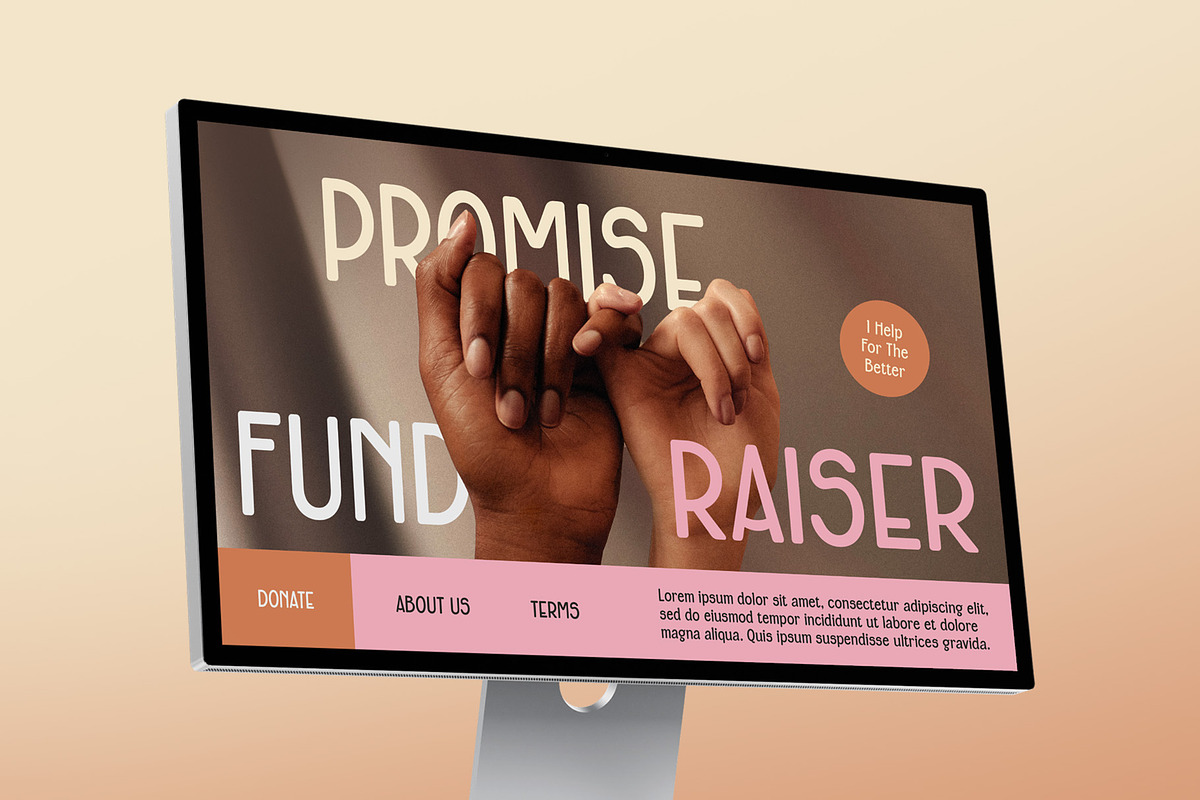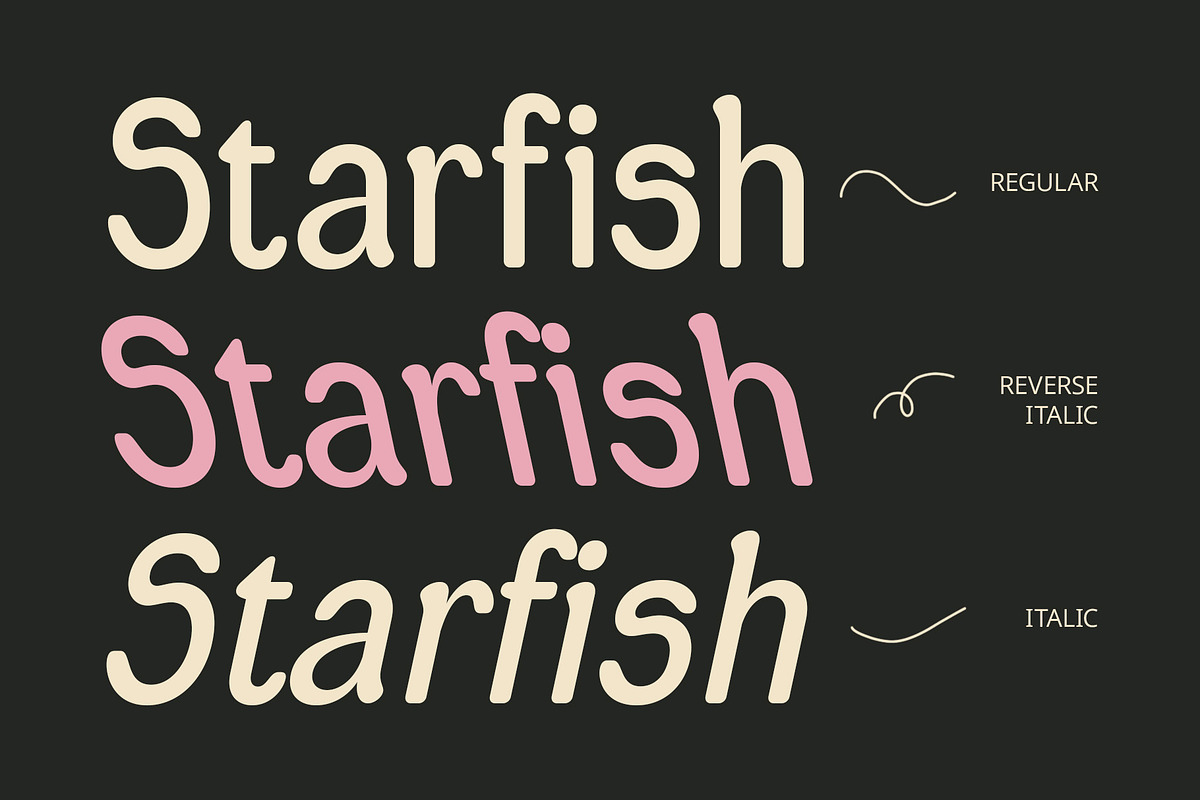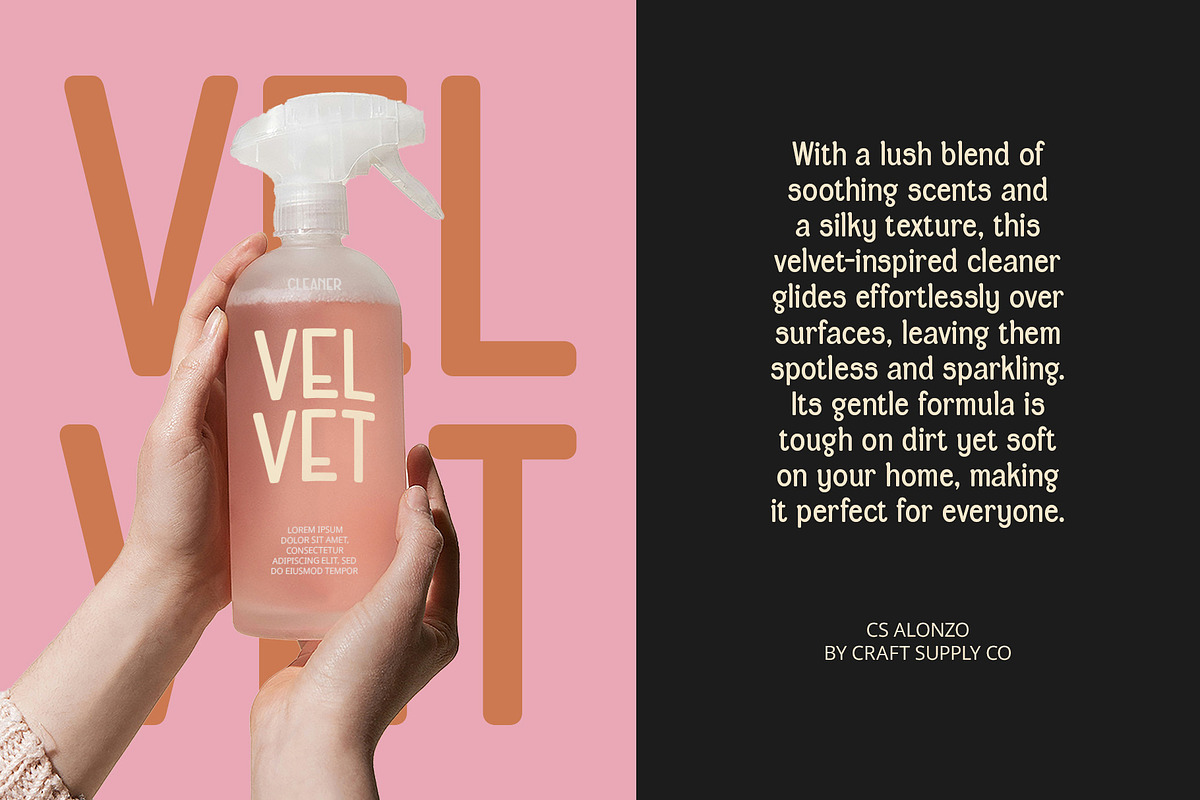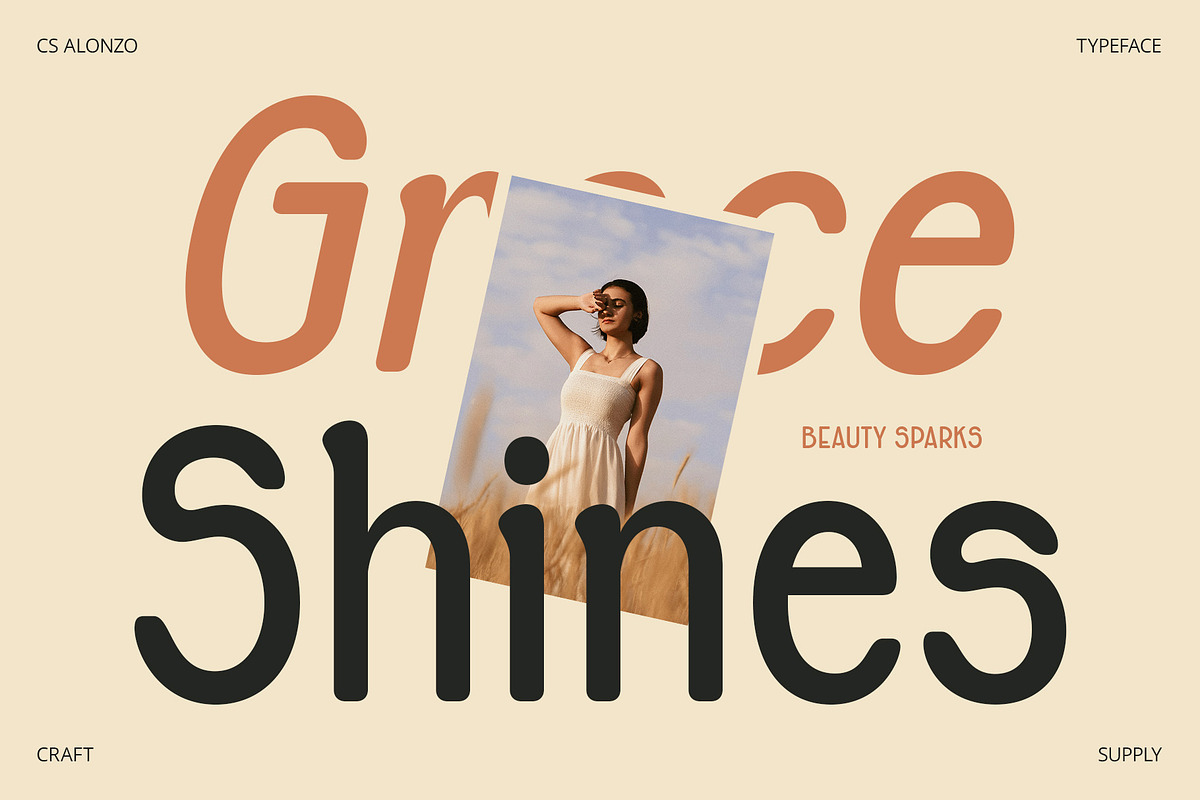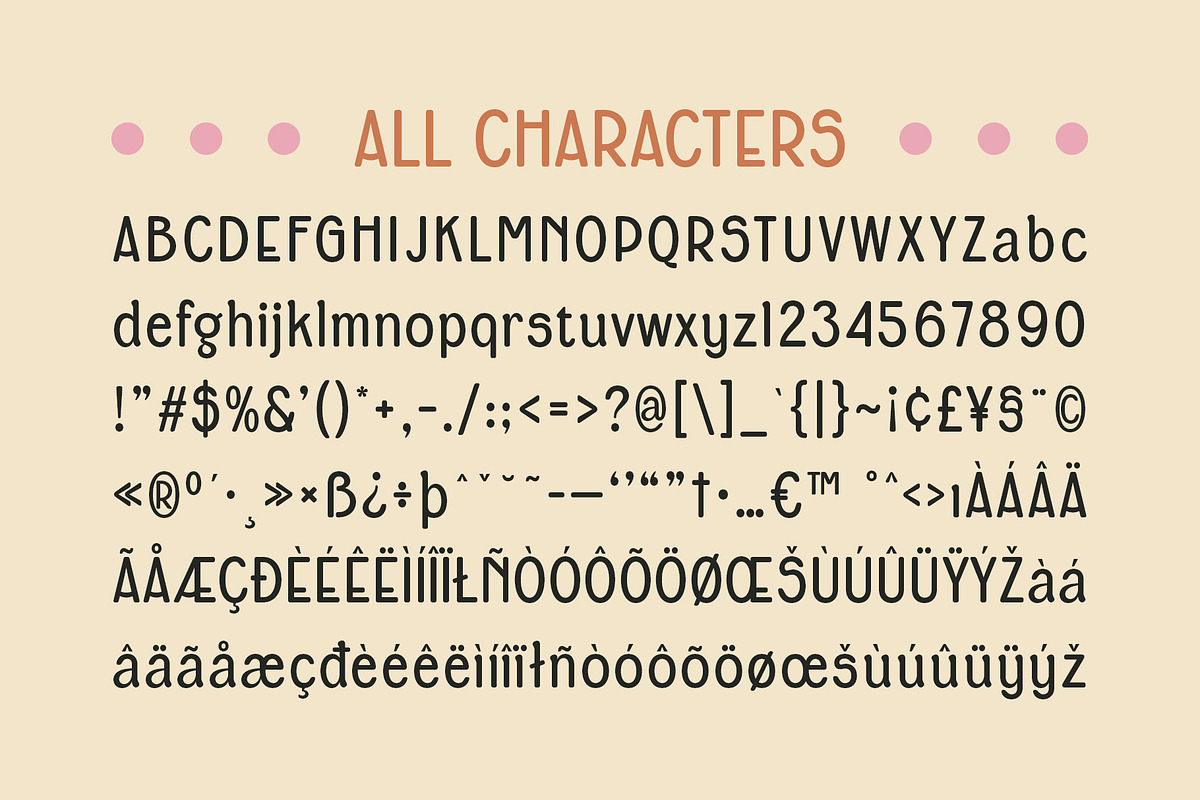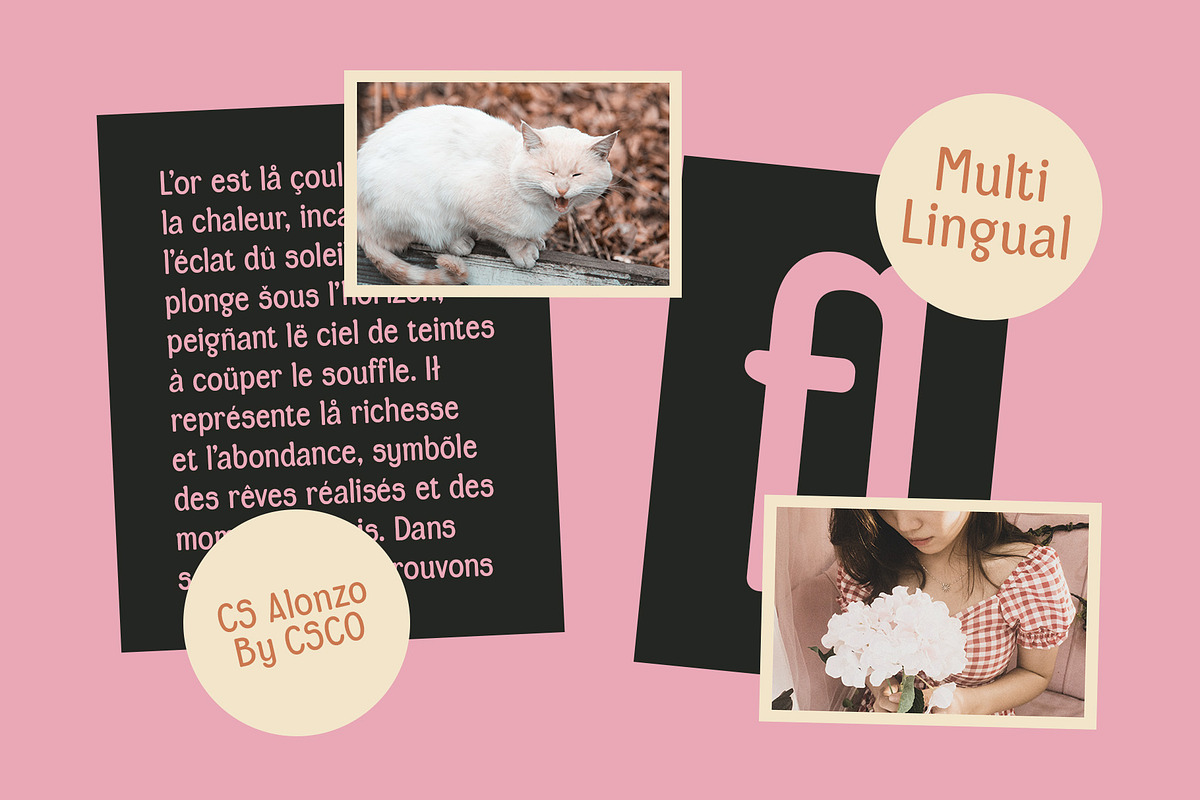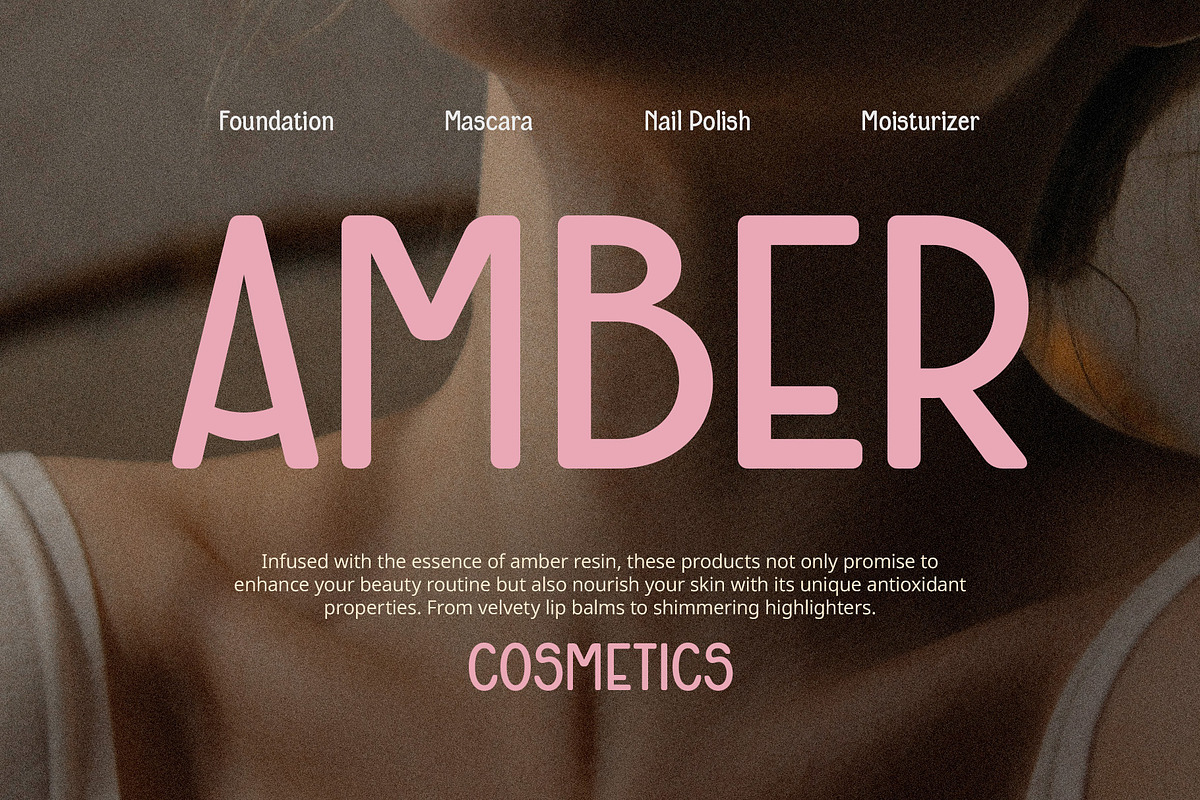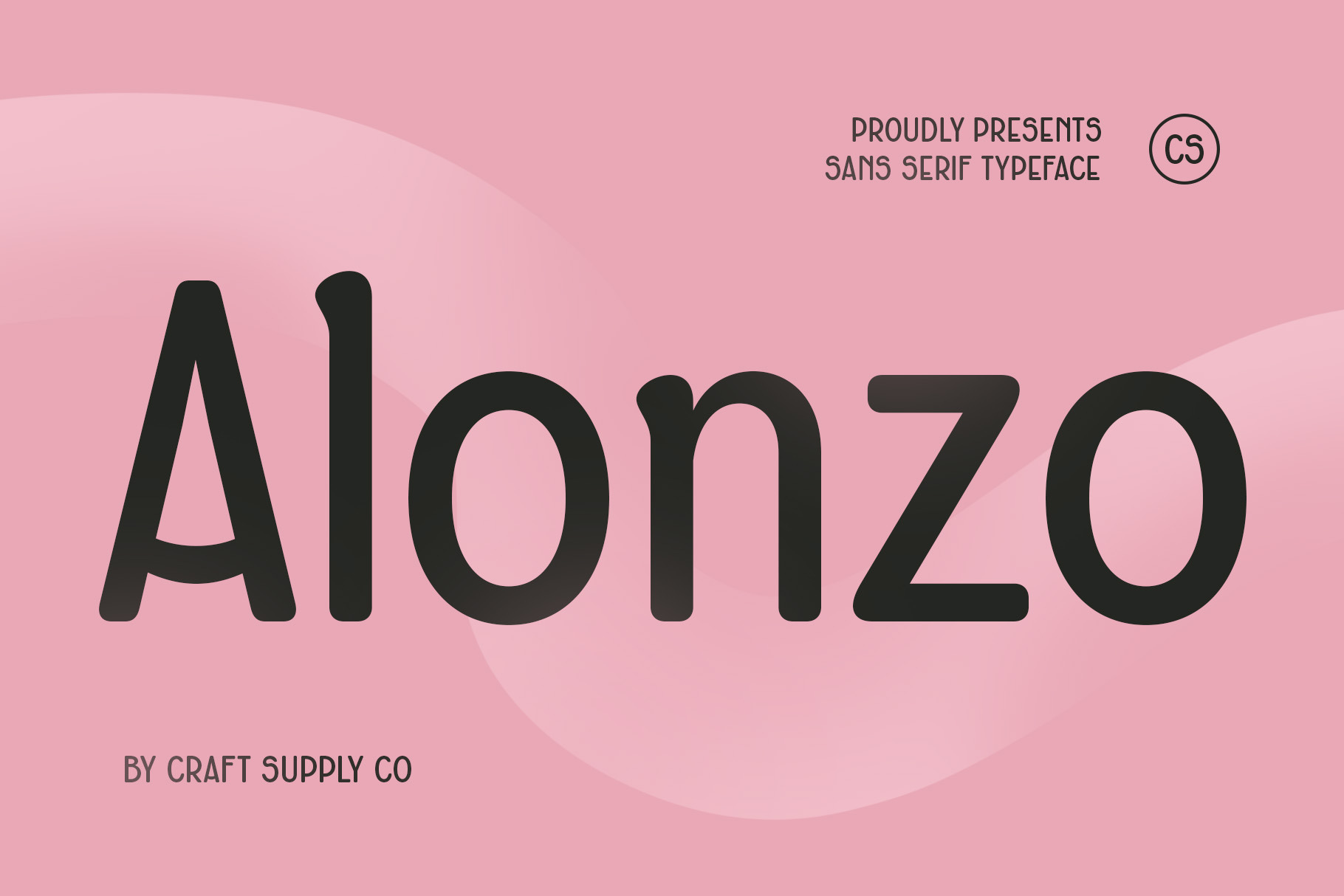
CS Alonzo – Cute Font
CS Alonzo – Cute Font: Charming Modern Rounded Sans Serif Font
Cute and Charming Design CS Alonzo is a delightful modern rounded sans serif font that exudes charm and femininity. Its soft corners and smooth, flowing shapes create a visually appealing and friendly atmosphere, making it an excellent choice for designs that prioritize elegance and warmth. This font’s cute aesthetic adds a playful touch, perfect for capturing attention and resonating with audiences.
Versatile Applications Ideal for a wide range of creative projects, CS Alonzo shines in designs for beauty products, invitations, and branding focused on female audiences. Whether you are crafting packaging for cosmetics, designing promotional materials for an event, or creating stylish invitations, this font enhances the overall appeal with its fresh and cheerful vibe.
Modern and Approachable The modernity of CS Alonzo is complemented by its soft, approachable character, making it suitable for brands that wish to convey a sense of friendliness and warmth. Its rounded forms evoke a sense of comfort, ensuring that your message feels inviting and accessible. This font’s versatility allows it to adapt seamlessly to various contexts, ensuring it meets the needs of different projects while maintaining its delightful charm.